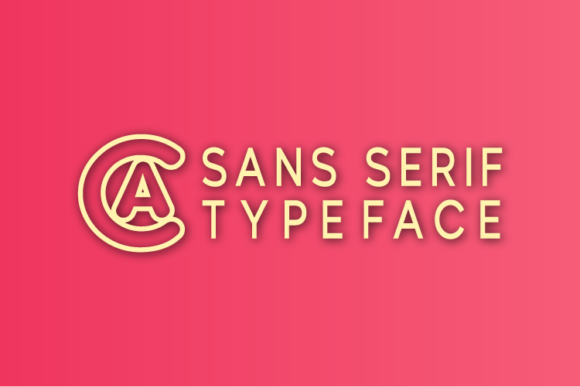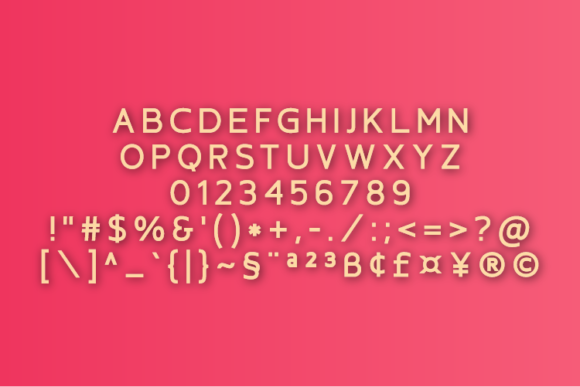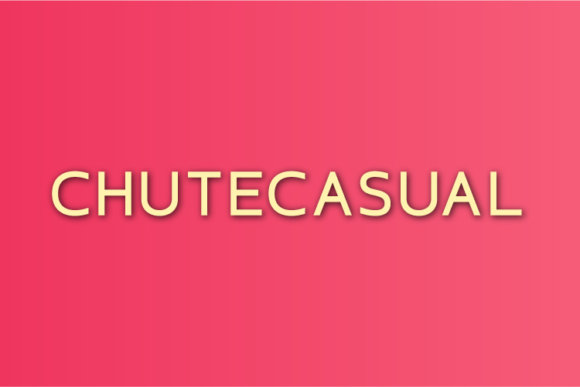
Introducing Chutecasual Font: The Ultimate Sans Serif for Creative Projects
Are you on the hunt for a font that can elevate your creative projects to the next level? Look no further than Chutecasual, a minimal and neat sans serif font that’s perfect for designers and crafters alike. With its clean lines and effortless charm, Chutecasual is the ideal choice for a wide range of projects, from branding and advertising to packaging and digital media.
The Versatility of Chutecasual
One of the standout features of Chutecasual is its incredible versatility. This font can easily be matched to an incredibly large set of projects, making it a valuable addition to any designer’s toolkit. Whether you’re working on a modern and edgy campaign or a more traditional and elegant design, Chutecasual is the perfect choice. Its neutral and unassuming style allows it to blend seamlessly into any design, while still adding a touch of sophistication and style.
The Benefits of Sans Serif Fonts
Sans serif fonts like Chutecasual have become increasingly popular in recent years, and for good reason. They offer a clean and modern aesthetic that’s perfect for digital media, where clarity and legibility are key. Sans serif fonts are also highly versatile, and can be used in a wide range of contexts, from body copy to headings and titles. And with their simple and uncluttered design, sans serif fonts like Chutecasual are easy to read and understand, making them perfect for use in a variety of applications.
Why Choose Chutecasual?
So why choose Chutecasual over other sans serif fonts? For starters, its minimal and neat design makes it perfect for use in a wide range of projects, from modern and edgy to traditional and elegant. Its clean lines and simple design also make it highly legible, even at small sizes. And with its effortless charm and sophisticated style, Chutecasual is sure to add a touch of class to any design.
Using Chutecasual in Your Designs
So how can you use Chutecasual in your designs? The possibilities are endless! Here are a few ideas to get you started:
- Branding and advertising: Use Chutecasual as a logo font or for body copy to add a touch of sophistication and style to your brand.
- Packaging: Chutecasual is perfect for use on packaging, where its clean lines and simple design make it easy to read and understand.
- Digital media: Use Chutecasual for body copy, headings, and titles in digital media, such as websites, social media, and email marketing campaigns.
- Crafting: Chutecasual is also perfect for crafters, who can use it to add a touch of elegance and sophistication to their projects.
Tips for Getting the Most out of Chutecasual
Here are a few tips for getting the most out of Chutecasual:
- Experiment with different sizes and weights: Chutecasual comes in a range of sizes and weights, so don’t be afraid to experiment to find the perfect combination for your design.
- Pair it with other fonts: Chutecasual pairs perfectly with other fonts, so try combining it with a serif font for added contrast and visual interest.
- Use it consistently: For maximum impact, use Chutecasual consistently throughout your design. This will help to create a cohesive and professional look.
In conclusion, Chutecasual is a versatile and stylish sans serif font that’s perfect for designers and crafters alike. With its clean lines, simple design, and effortless charm, Chutecasual is sure to add a touch of sophistication and style to any design. So why wait? Add Chutecasual to your creative toolkit today and see how it can elevate your projects to the next level!